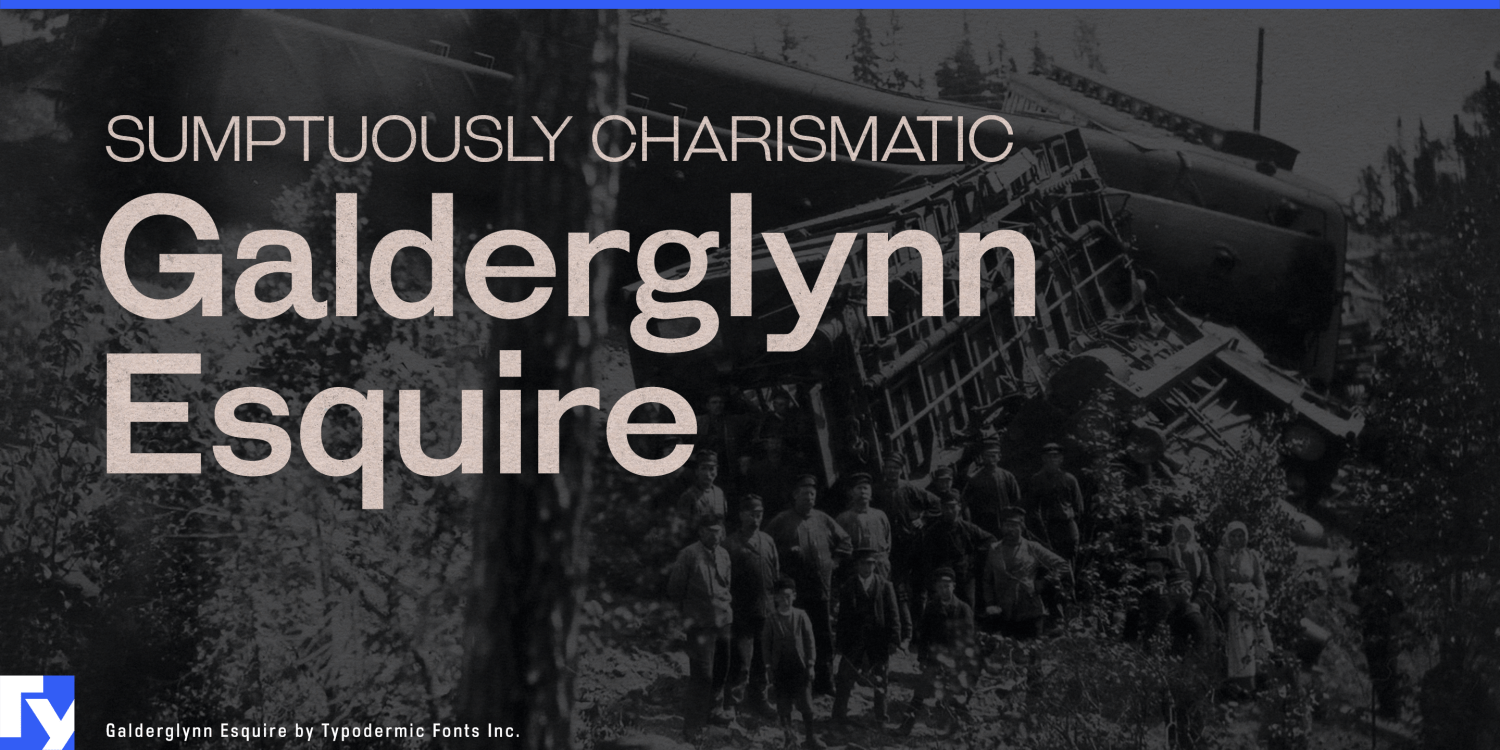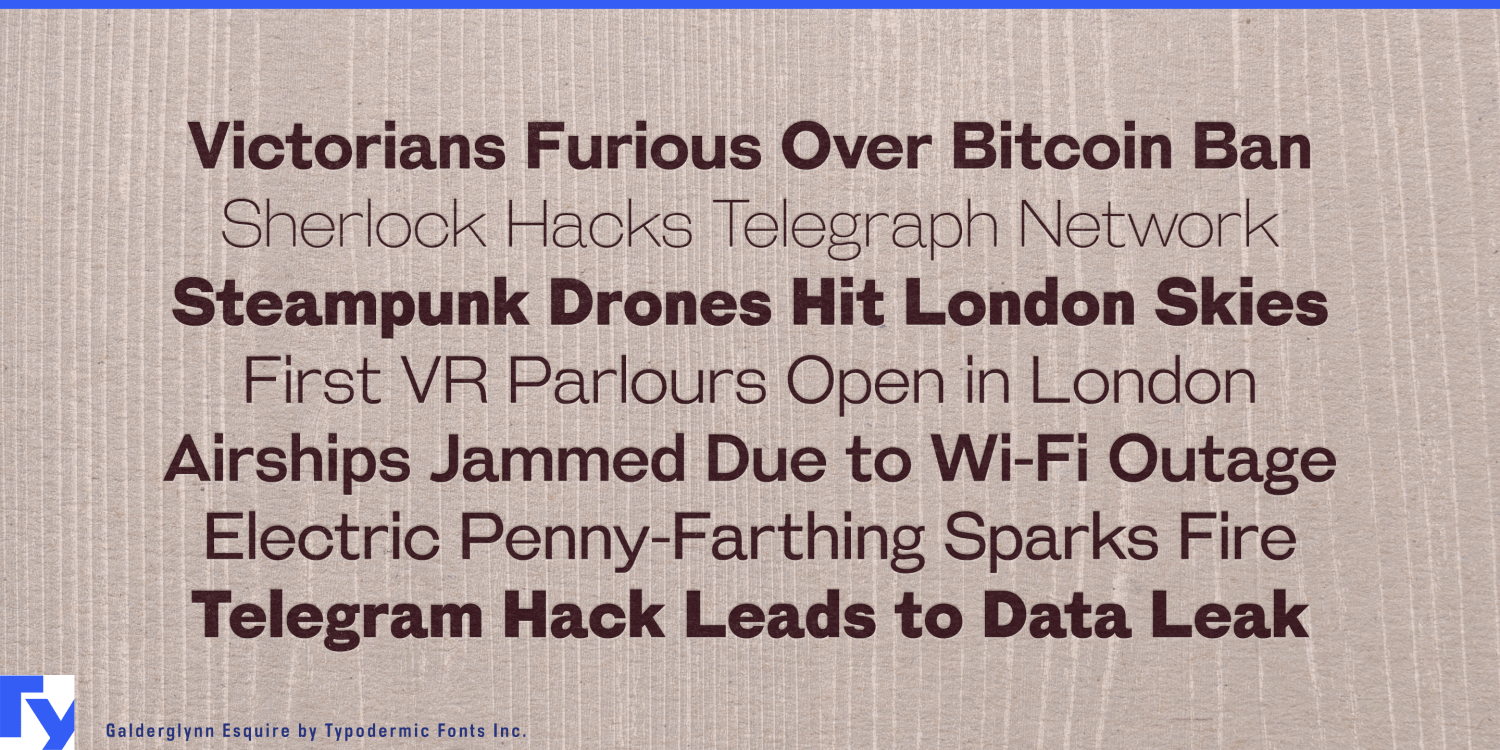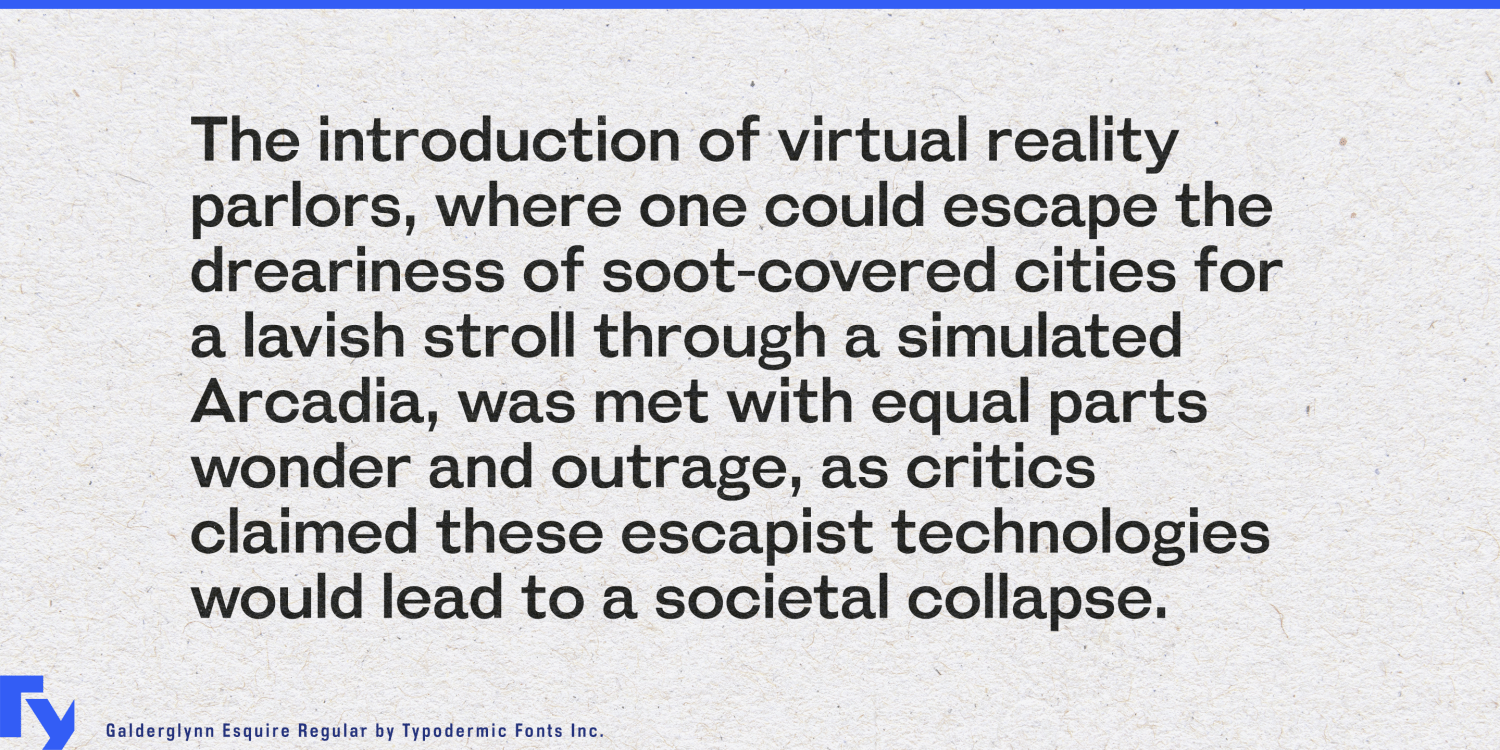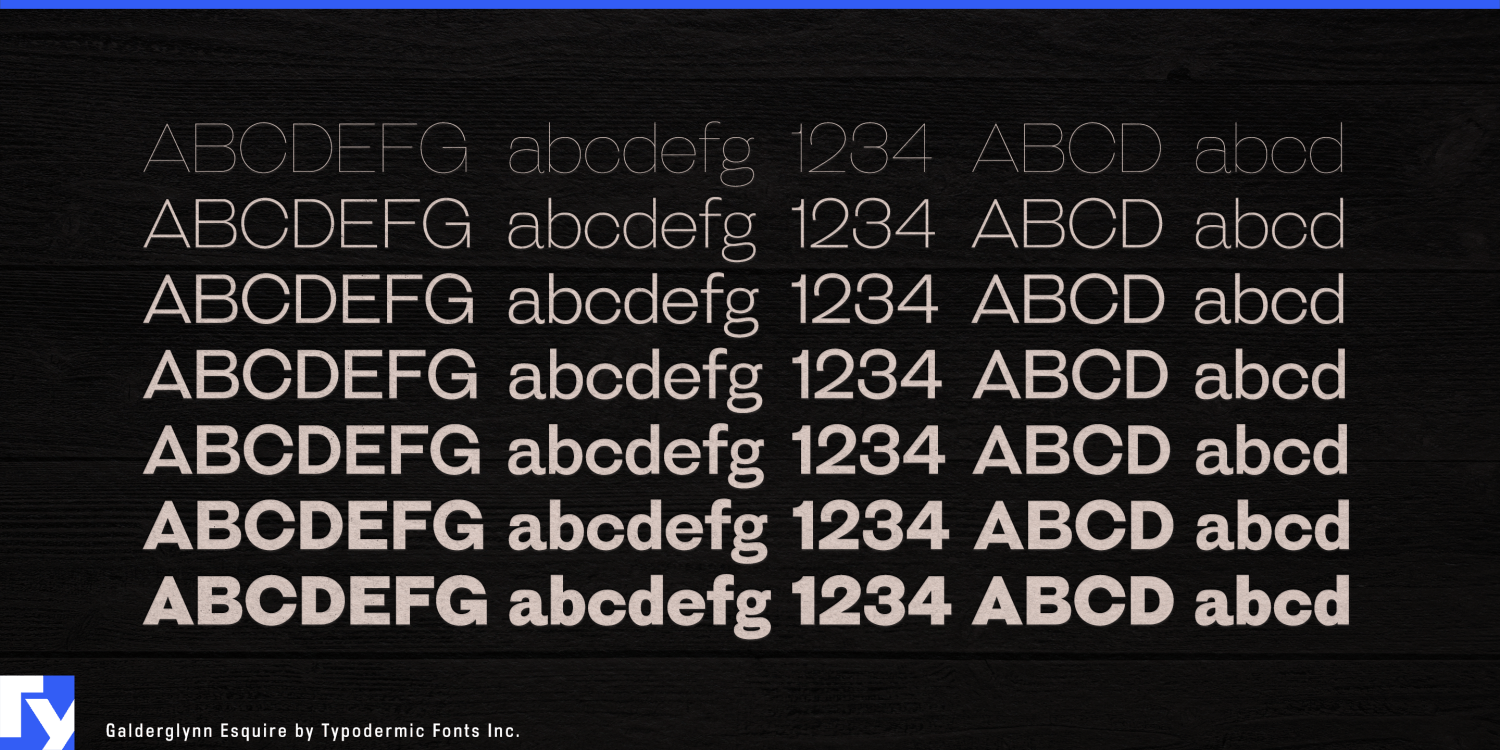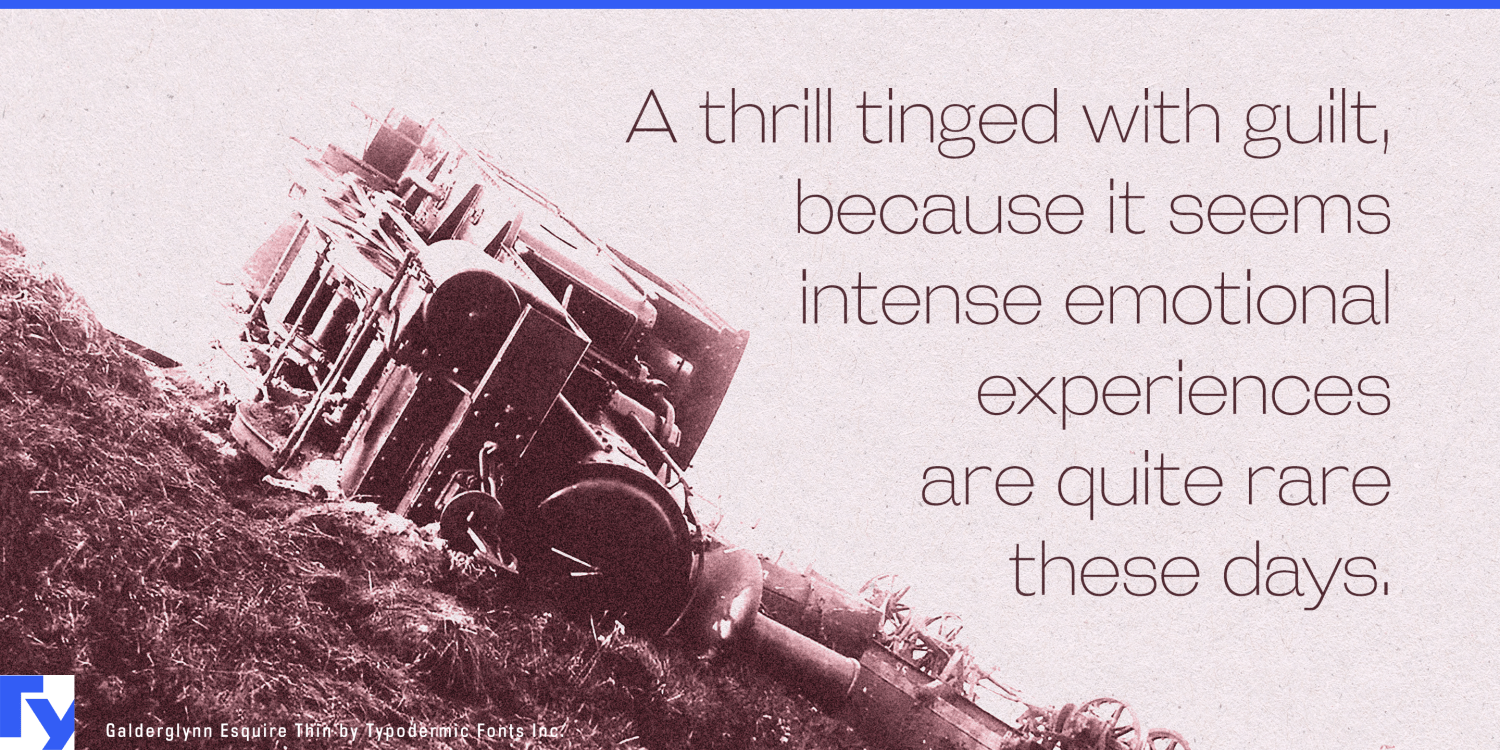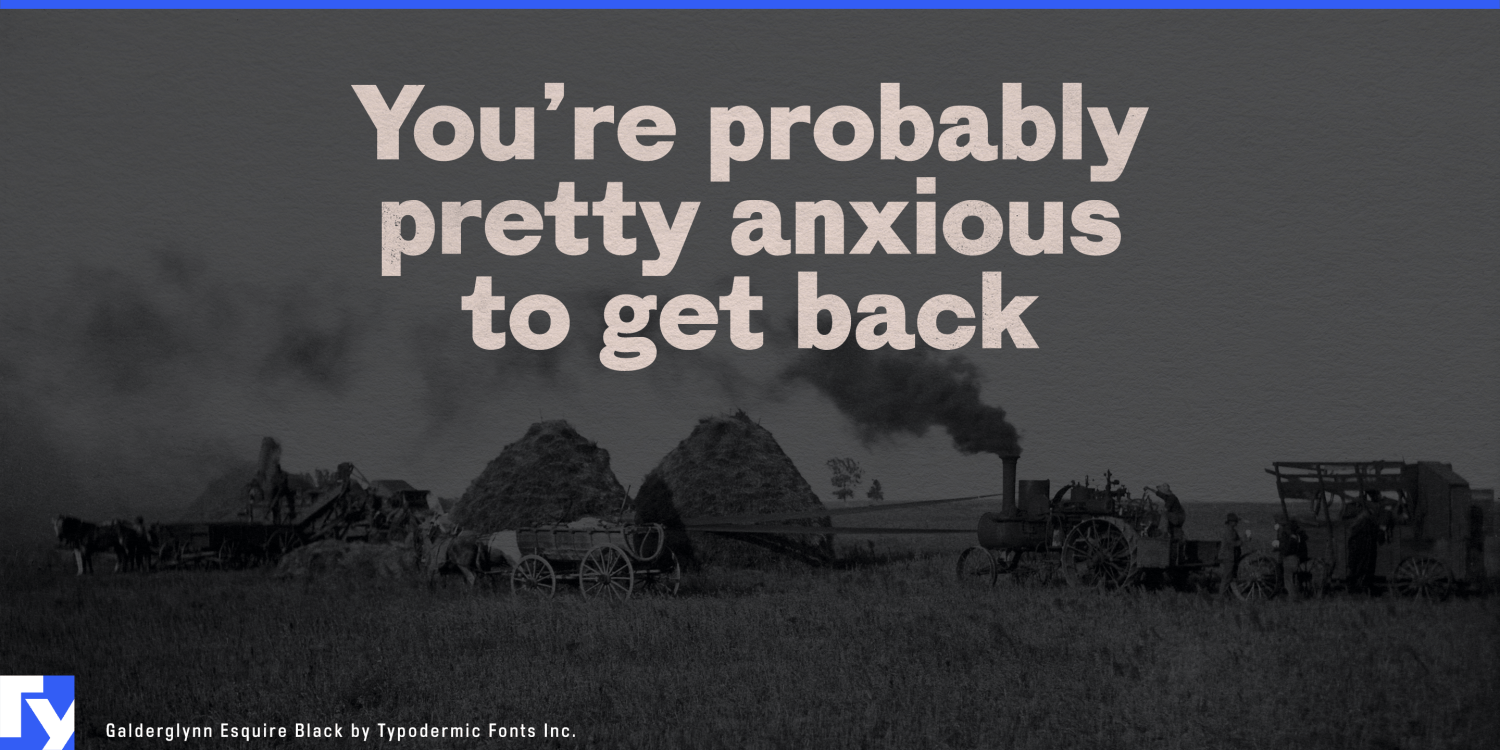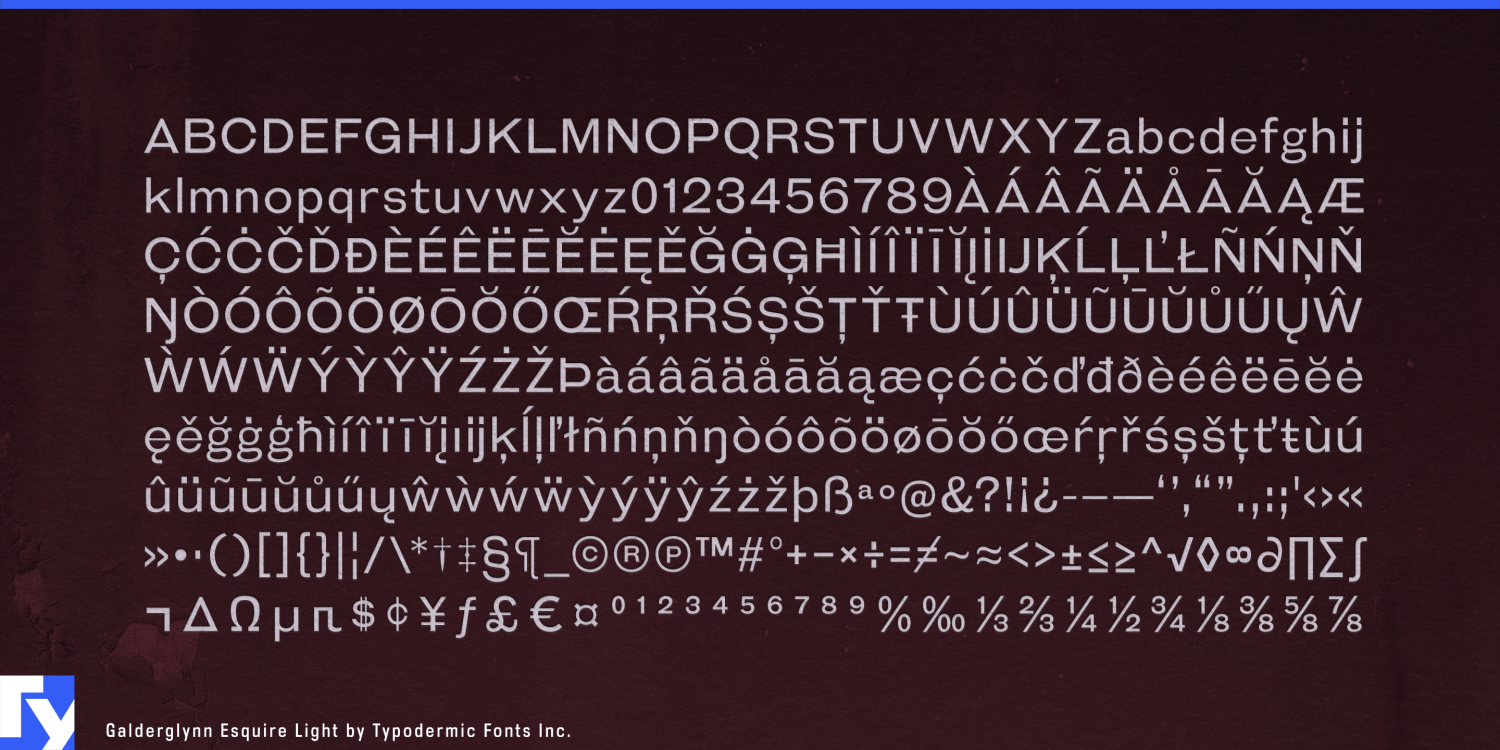
Galderglynn Esquire
Font Family by Typodermic
Historical typography can become too well behaved. Smooth every inconsistency and coordinate every letter too carefully, and the result may look more polished than the printed world it is meant to evoke. Galderglynn Esquire takes another route. Its letterforms were assembled from a broad collection of nineteenth-century grotesques, preserving mismatched widths, structures and peculiarities rather than forcing them into complete agreement.
That disorder makes Esquire especially useful for alternate history and historical comedy. Faux newspaper headlines, period games, theatrical posters and fictional advertisements can suggest the nineteenth century without adopting the solemn authority of a museum label. Telegraph companies, impossible inventions and dubious scientific breakthroughs benefit from typography that feels assembled rather than reconstructed.
Curiosity shops, antique markets, architectural salvage dealers, vintage fairs and used-book events offer another natural setting. Their collections rarely come from one perfectly coordinated period, and Esquire reflects that accumulation. Antique-market posters, oddities-shop signs, price cards and book-fair programs can feel gathered over time instead of packaged into a tidy heritage identity.
The same quality suits the noisier side of nineteenth-century advertising: patent medicines, mail-order contraptions, travelling demonstrations and questionable miracle devices. Film props, escape-room documents, historical-game graphics and museum interactives can use Esquire to create period material with a little confusion and salesmanship left in it.
In lighter weights, the eccentric proportions become quieter without disappearing, opening the family to small-press publishing, cultural magazines and exhibition catalogues. Heavier styles bring the mismatched shapes and widths forward until the irregularity becomes part of the headline. Galderglynn Esquire is the nineteenth-century grotesque before somebody straightened the shelves.